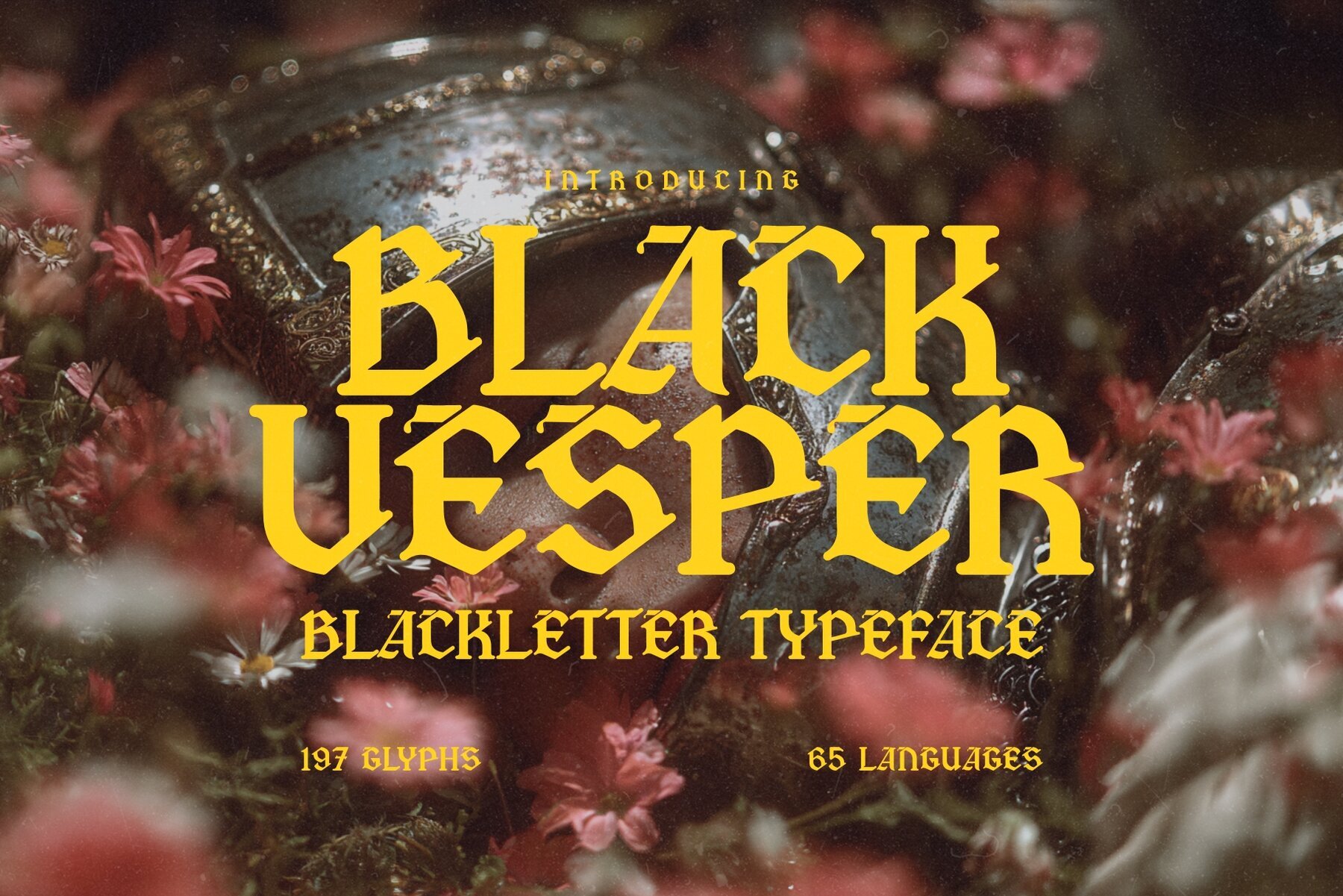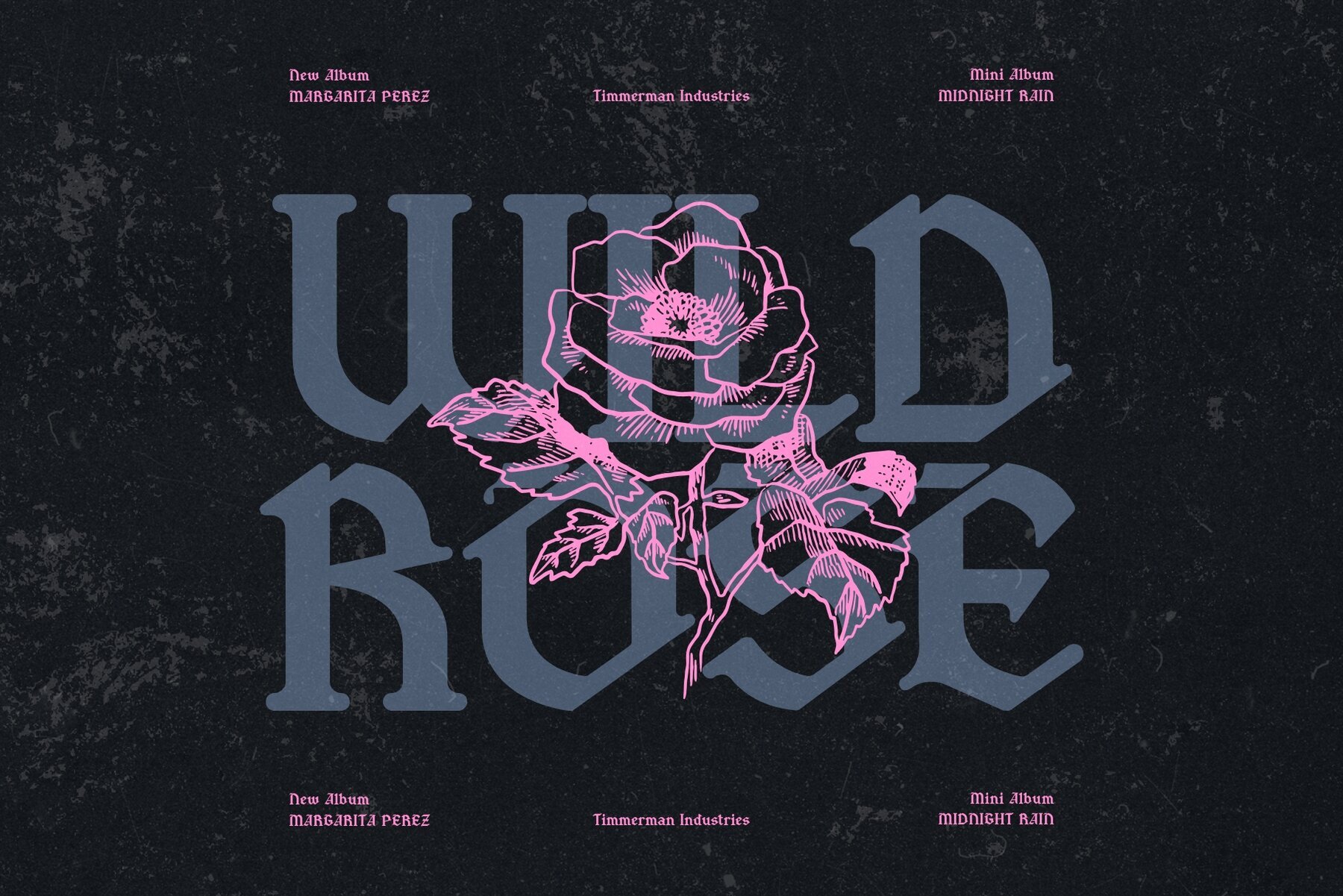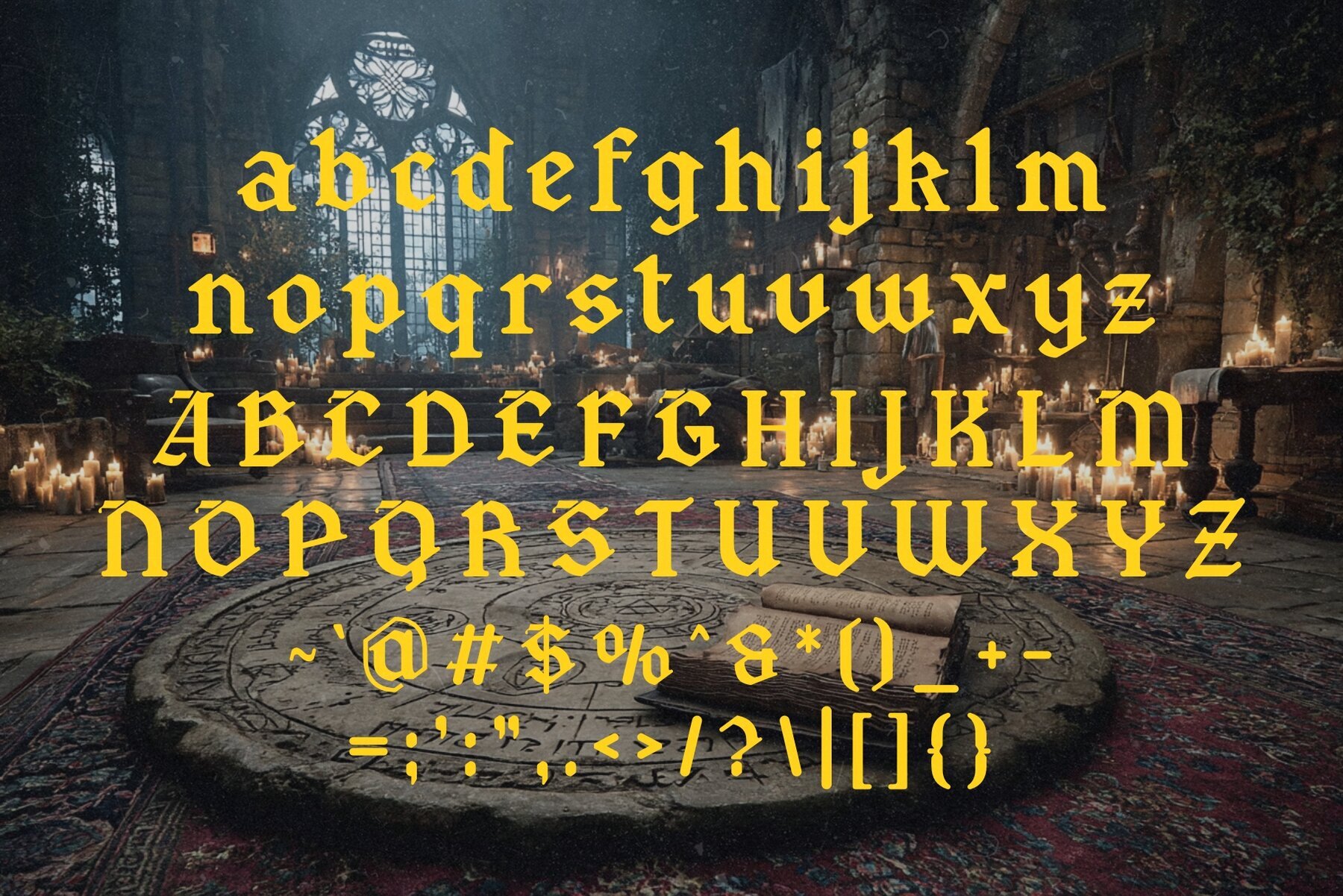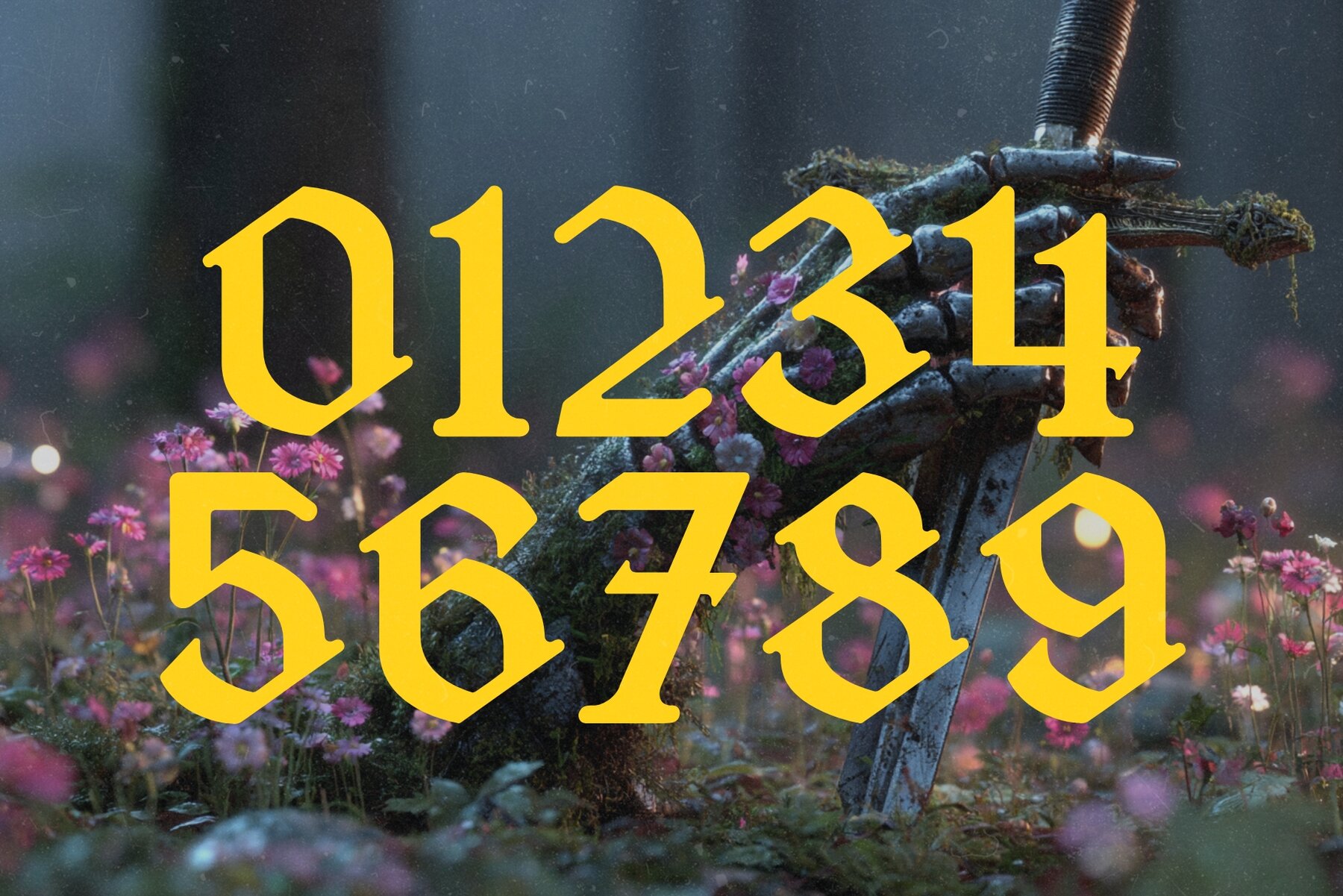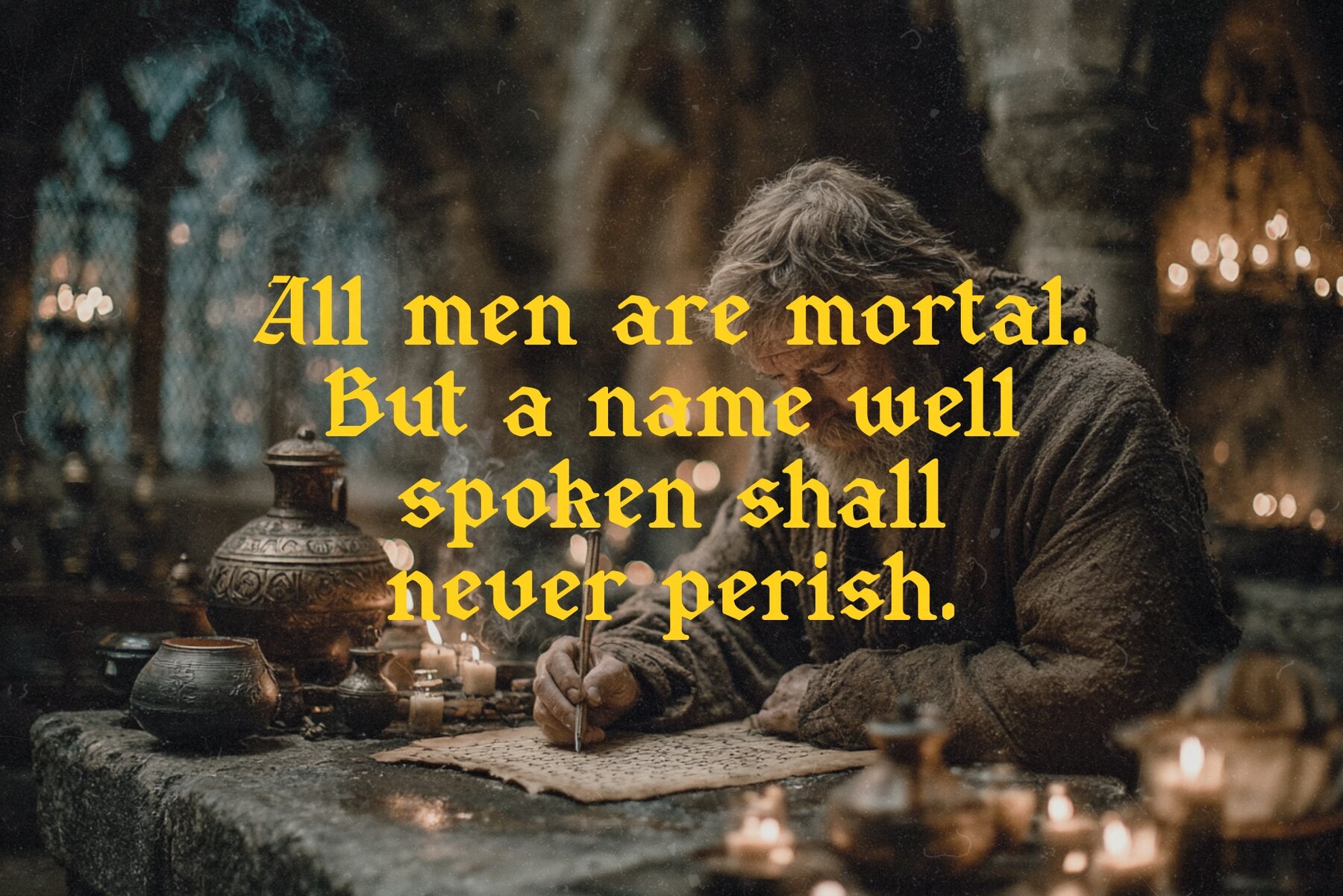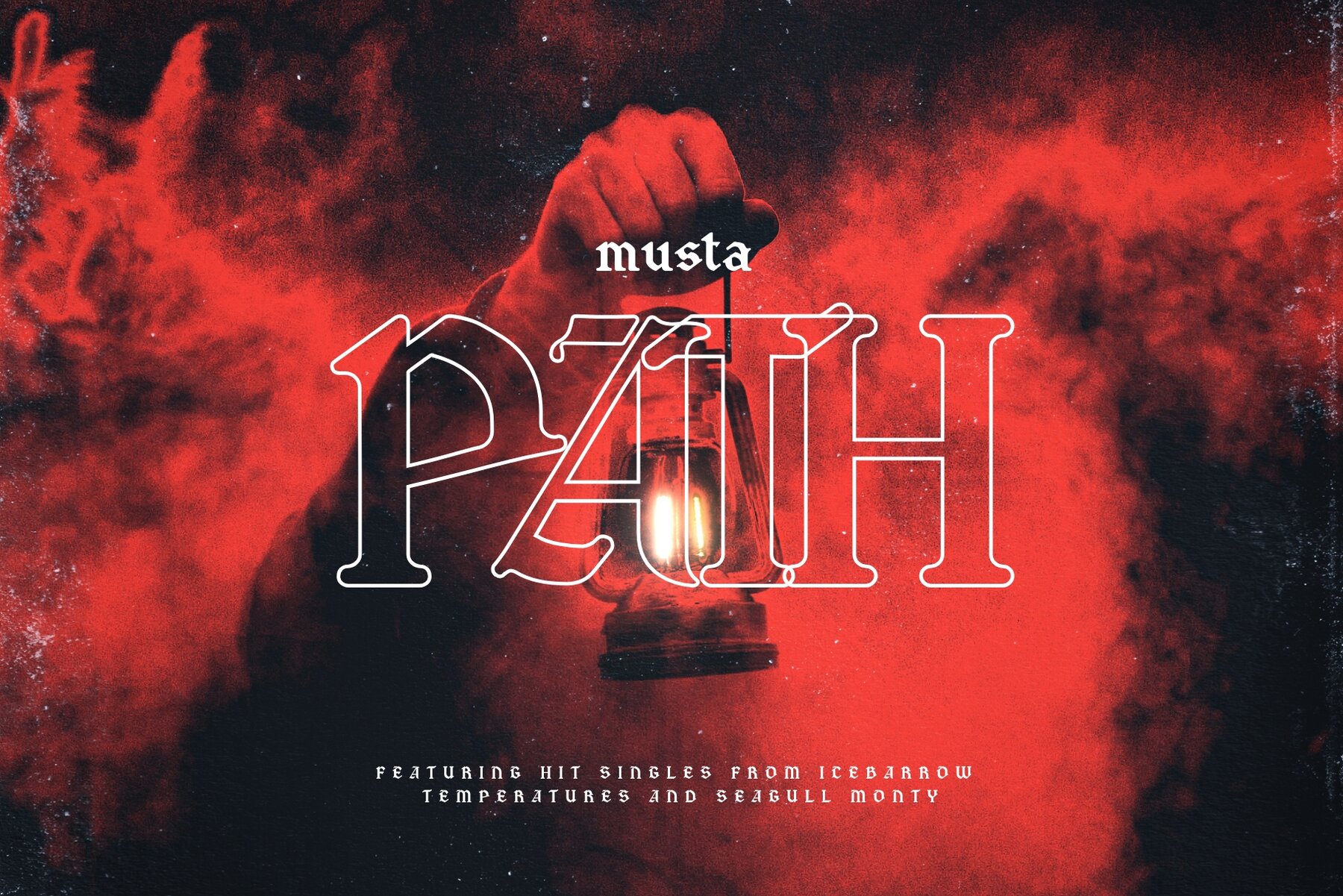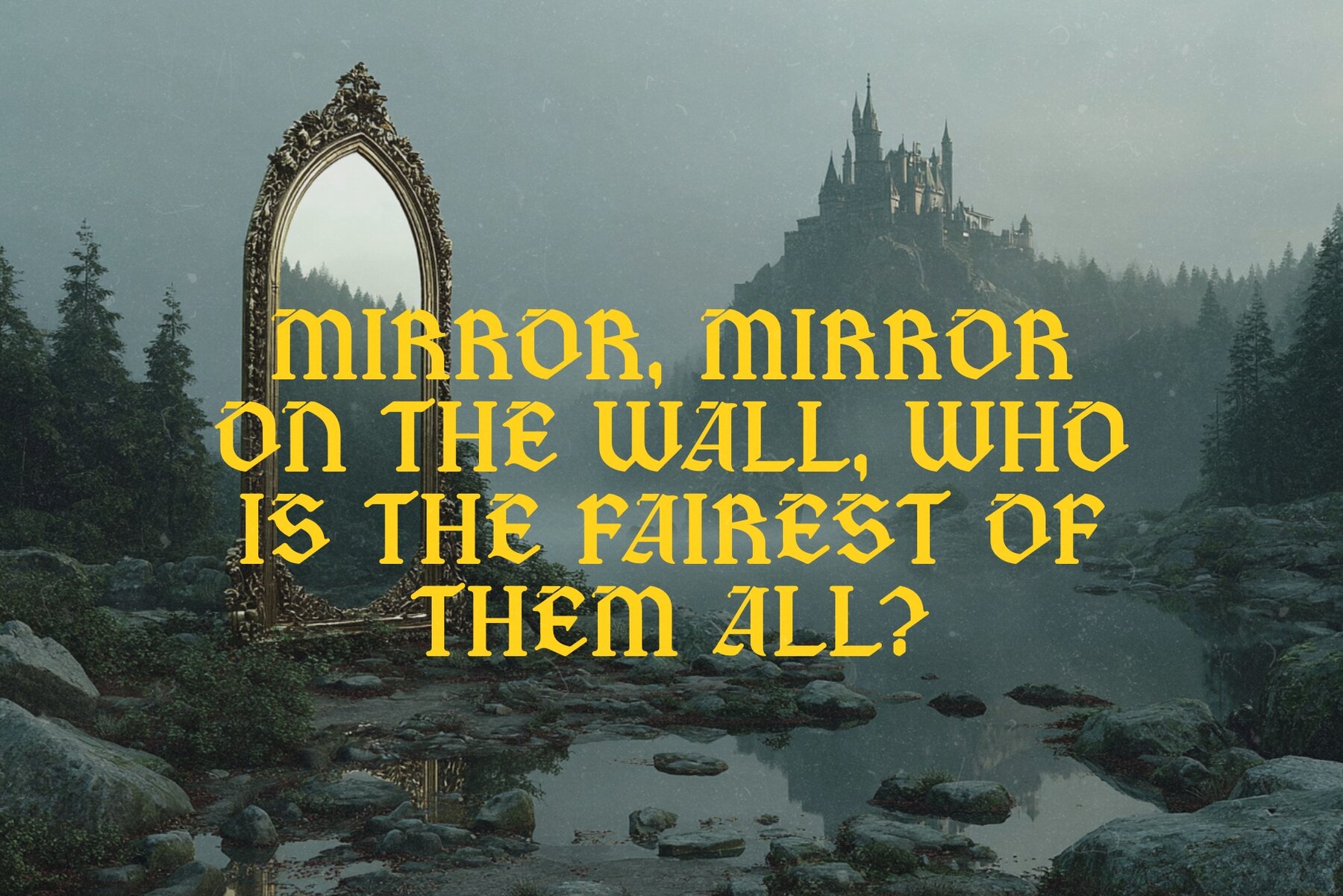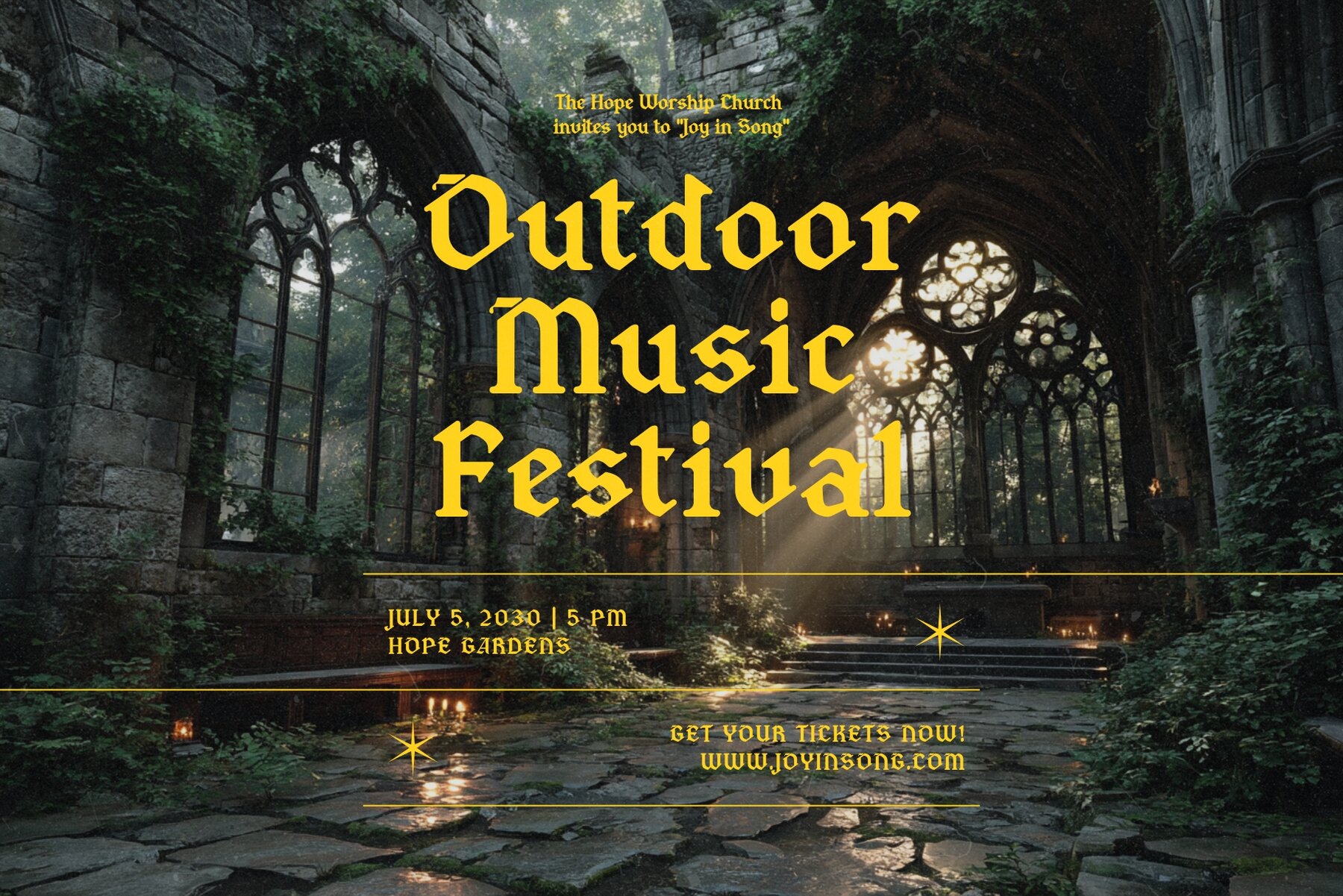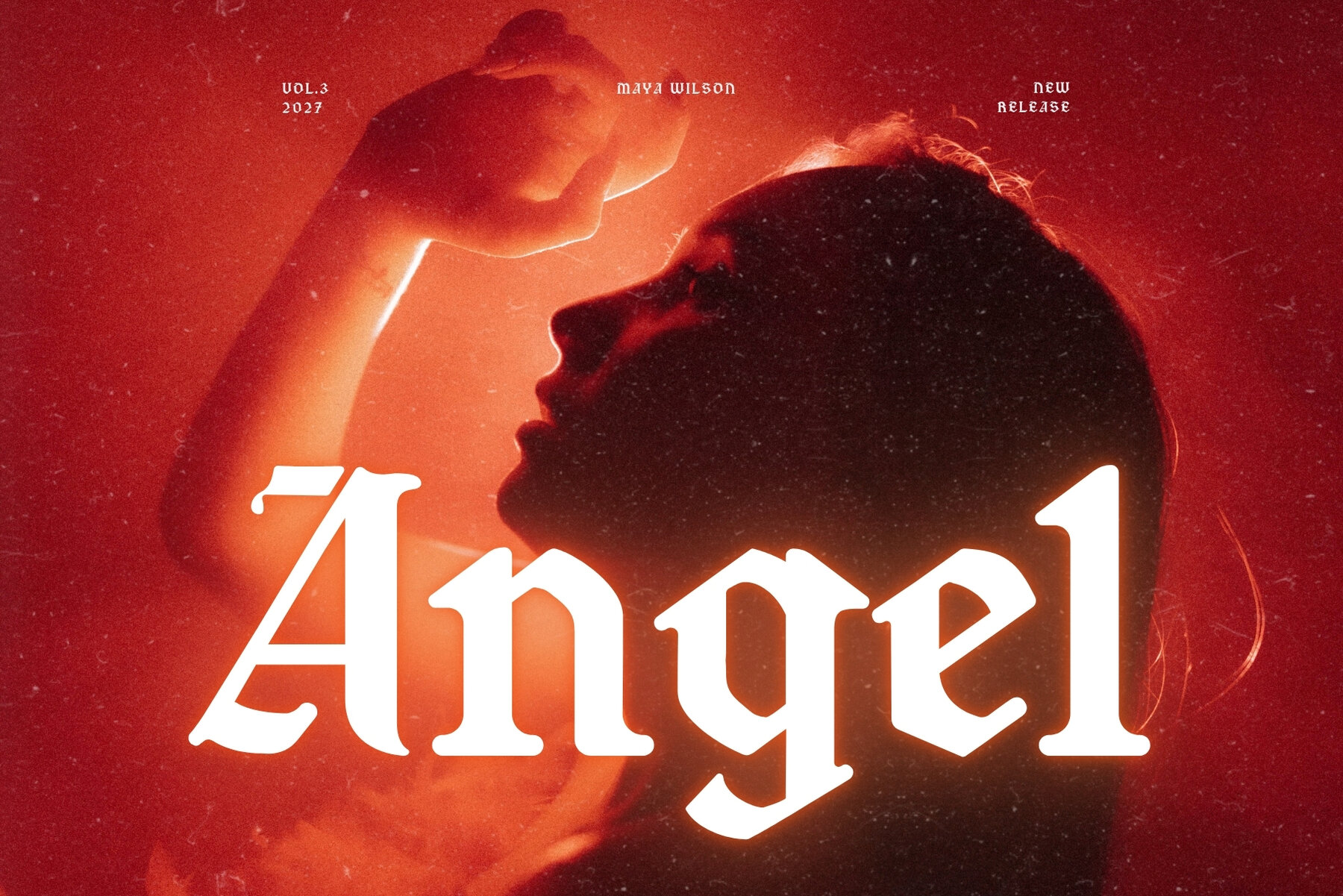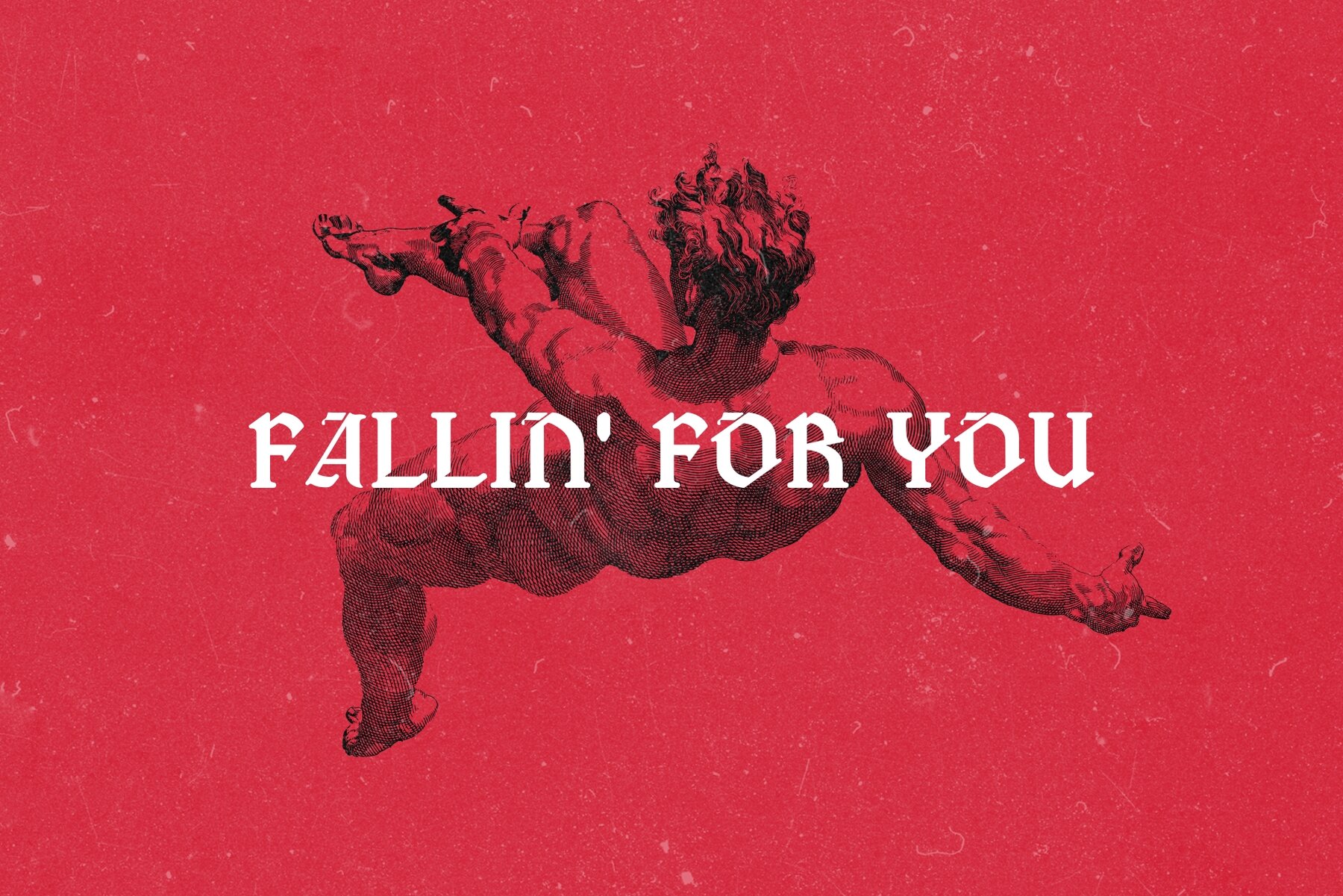
Black Vesper Font
Black Vesper
Dive into a realm where shadows come alive, legends whisper, and ancient runes hint at untold tales. Black Vesper transcends traditional typefaces, offering a journey into the mystical. Designed with meticulous attention to medieval aesthetics, this striking blackletter font embodies the essence of illuminated manuscripts, time-worn banners, and sacred texts. Offering 197 glyphs and fluency in 65 languages, Black Vesper offers versatile expression, perfectly matching fantasy realms, epic game titles, imaginative branding, and storytelling rich in mystery. With its pronounced serifs and sophisticated curves, it achieves harmony between the ancient and the modern, making it ideal for scrolls, user interfaces, logos, book covers, or any project requiring an extraordinary touch.Black Vesper: A Typeface of Medieval Elegance